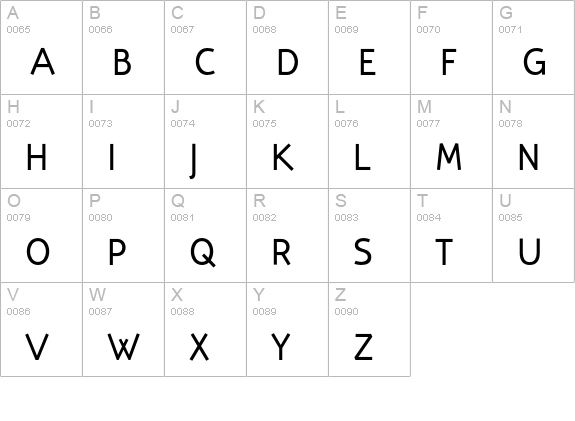
Introducing Torus font, a captivating and versatile typeface that effortlessly blends contemporary design with timeless elegance. With its sleek and precise lines, Torus font adds a touch of sophistication to any project, making it perfect for both digital and print applications. This remarkable font is not only visually stunning but also incredibly functional, offering a wide range of weights and styles to suit various design needs. From bold and impactful headlines to delicate and refined body text, Torus font provides a comprehensive typographic solution that can adapt to any creative vision. One of the most remarkable aspects of Torus font is that it is free. Yes, you read that right! This exceptional font can be freely downloaded from FontsMarket.com, allowing designers and enthusiasts alike to enjoy its brilliance without any financial constraints. Whether you're a professional designer or a hobbyist, Torus font offers you the opportunity to elevate your projects without breaking the bank. Not only is Torus font free, but it is also incredibly easy to use. Its user-friendly interface and intuitive design make it accessible to designers of all skill levels. Whether you're a seasoned professional or just starting your design journey, Torus font ensures a seamless and enjoyable typographic experience. In addition to its aesthetic and functional qualities, Torus font also boasts exceptional legibility, making it perfect for a wide range of applications. From website design to branding materials, advertising campaigns to editorial layouts, Torus font ensures that your message is conveyed with clarity and impact. So why wait? Experience the beauty and versatility of Torus font today by downloading it for free at FontsMarket.com. Unleash your creativity and elevate your designs with this remarkable typeface that combines elegance, functionality, and affordability in one package. Torus font is here to help you create stunning visuals that leave a lasting impression.